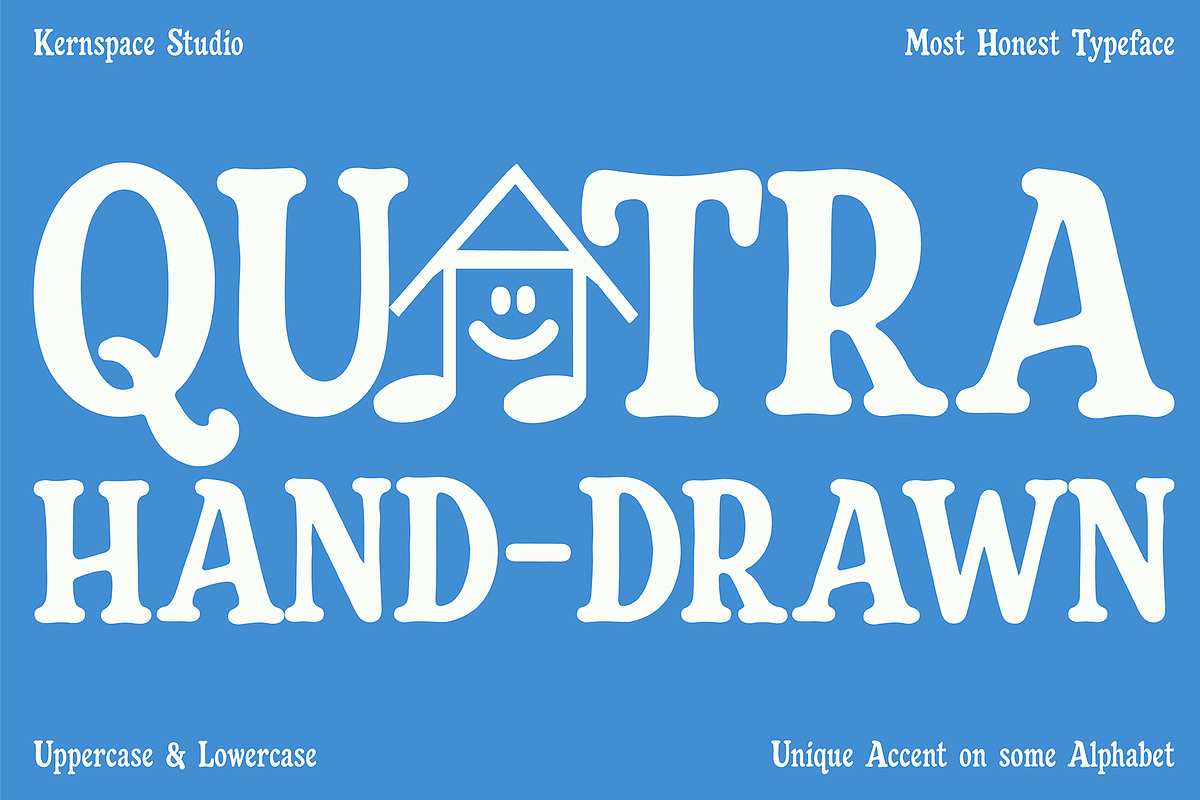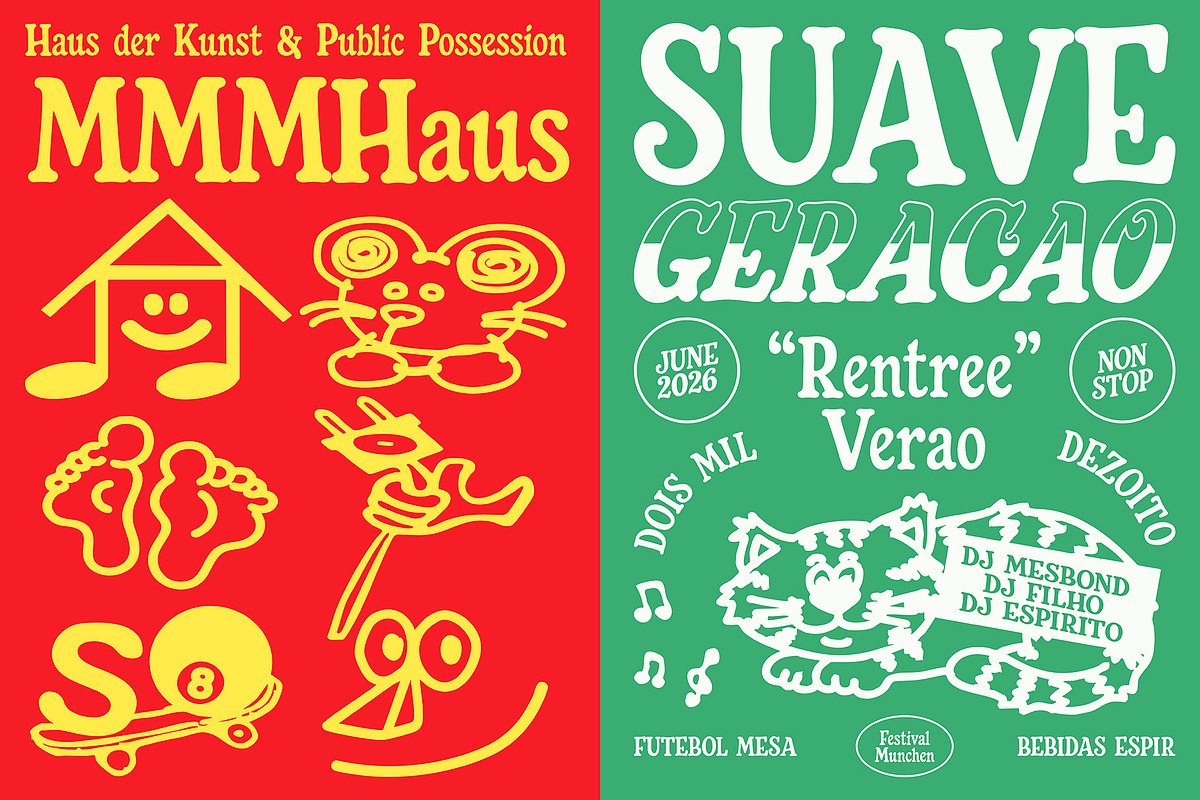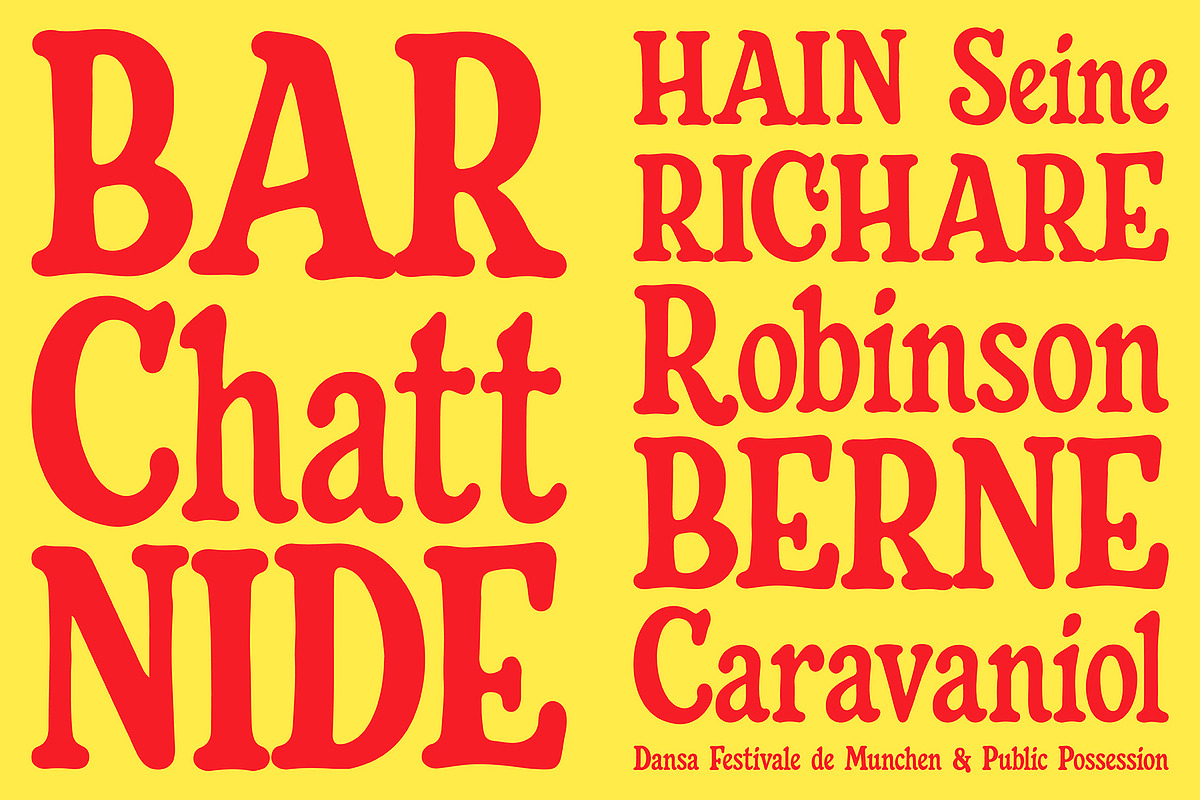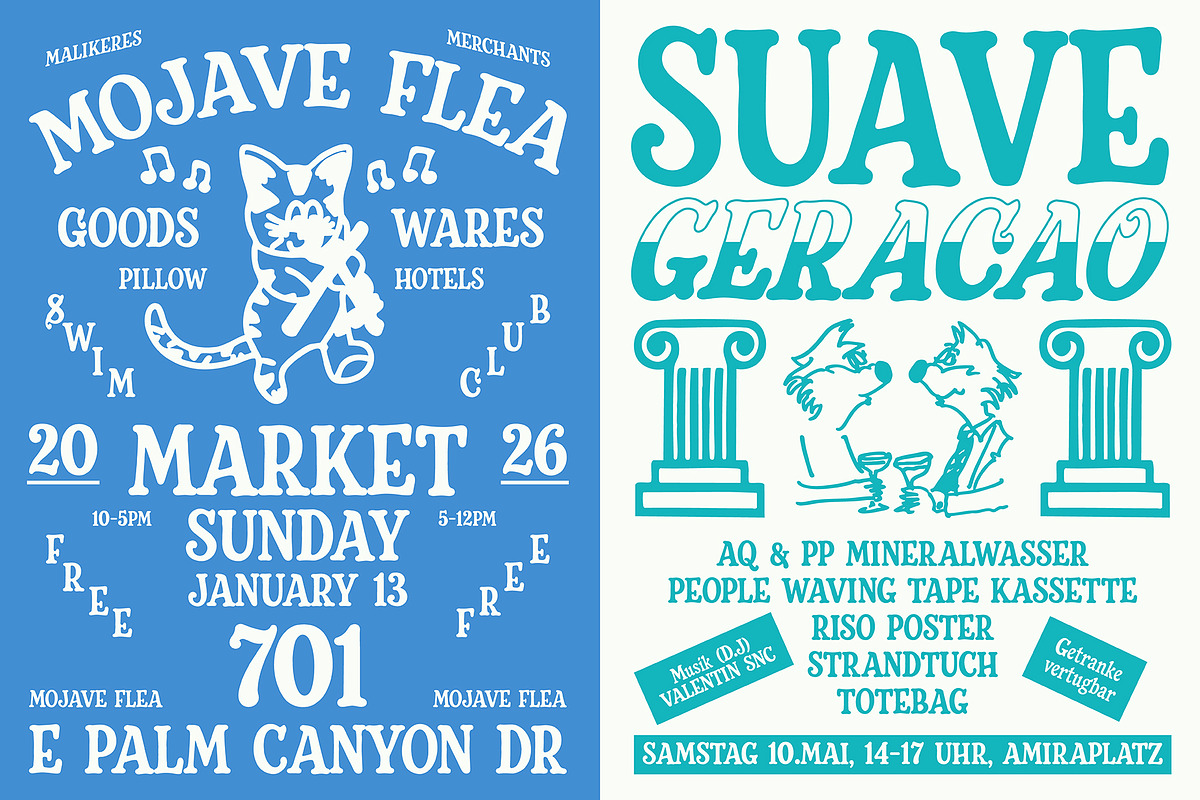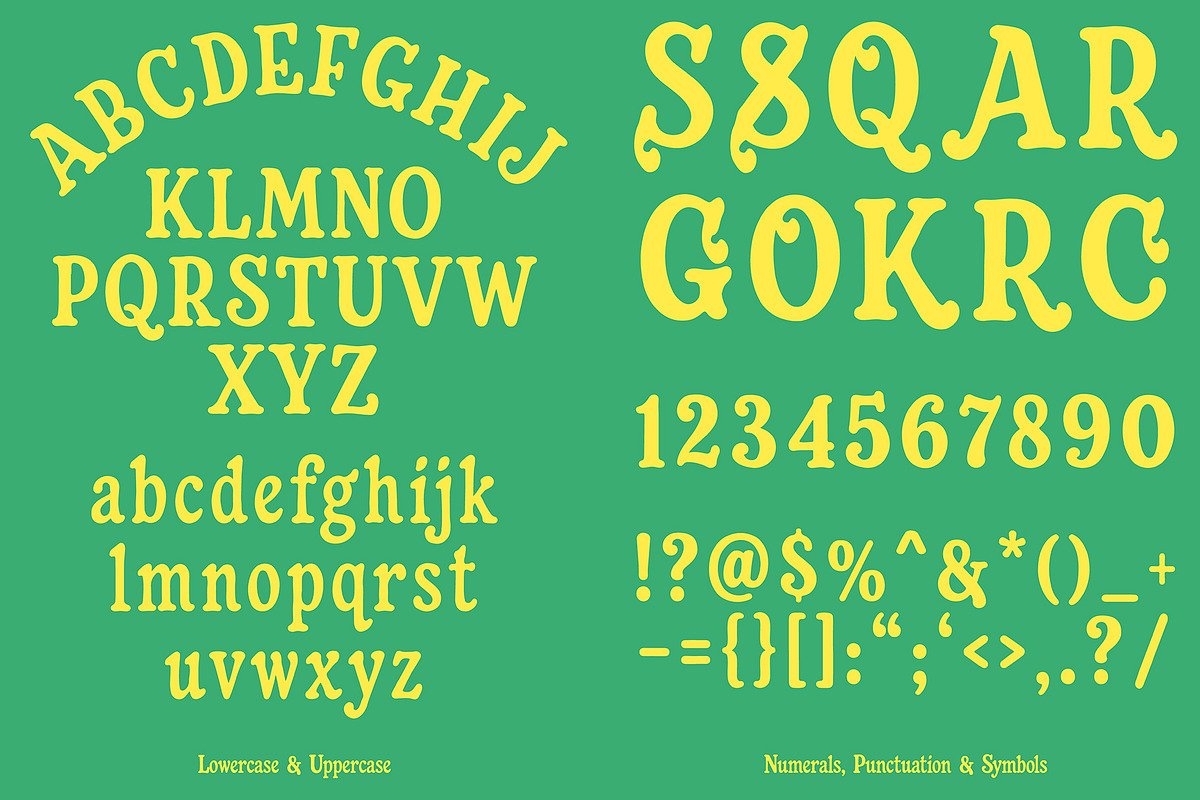
KSP Quatra
QUATRA – Playful Hand-Drawn Display Typeface
QUATRA is a charming hand-drawn display font that brings warmth, personality, and a touch of whimsy to every design. Inspired by children's doodles, storybooks, and playful imagination, this typeface features soft curves, organic shapes, and unique character accents that make your typography feel friendly and memorable.
Designed to stand out, QUATRA combines a handcrafted aesthetic with excellent readability, making it perfect for projects that need a fun, cheerful, and authentic visual voice.